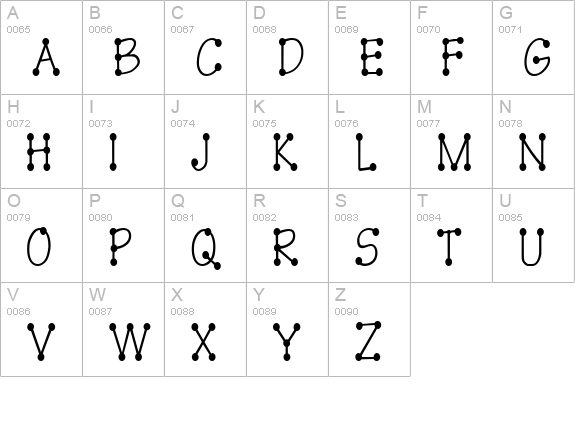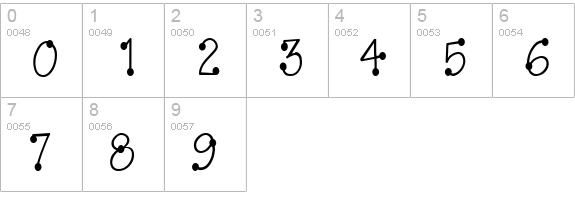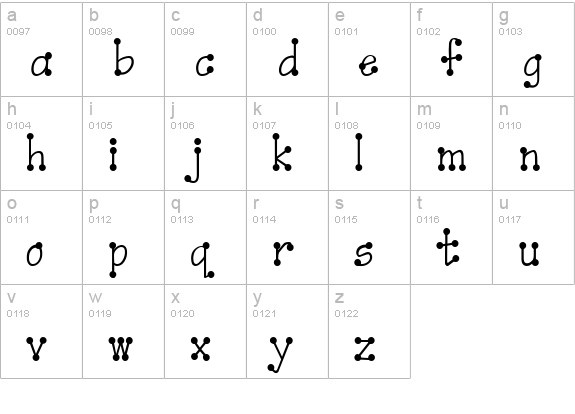
AbcBulletin Font Details
Introducing AbcBulletin font, a versatile and modern typeface that combines sleek lines with a hint of classic elegance. This font is perfect for a wide range of design projects, from branding to editorial design. With its clean and professional look, AbcBulletin font is sure to make your text stand out. What's even better is that AbcBulletin font is completely free to download at FontsMarket.com. Take advantage of this stylish and contemporary font without breaking the bank. Whether you're working on a print or digital project, AbcBulletin font will bring a touch of sophistication to your designs. Download it today and elevate your typography game!